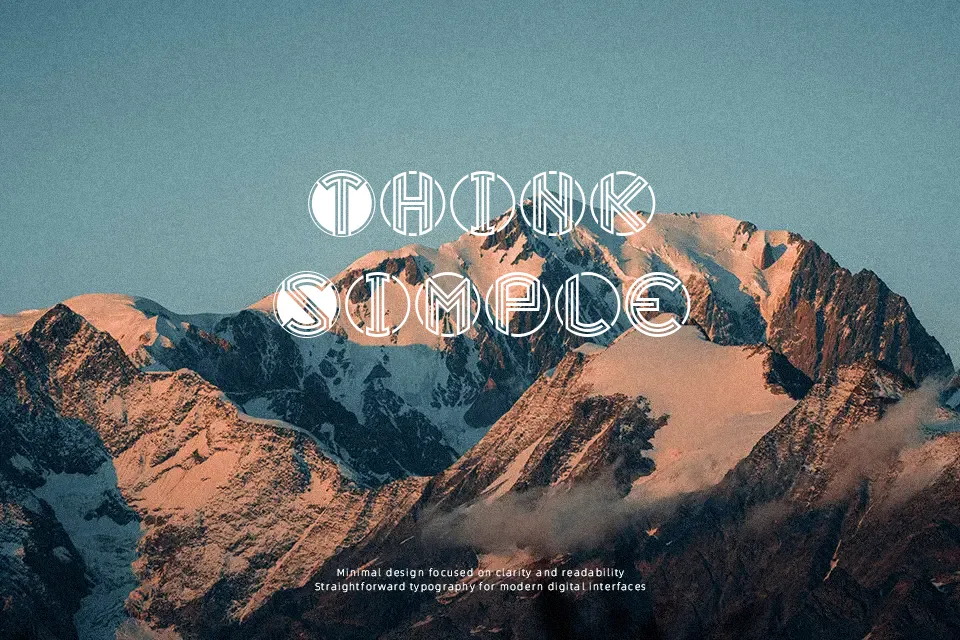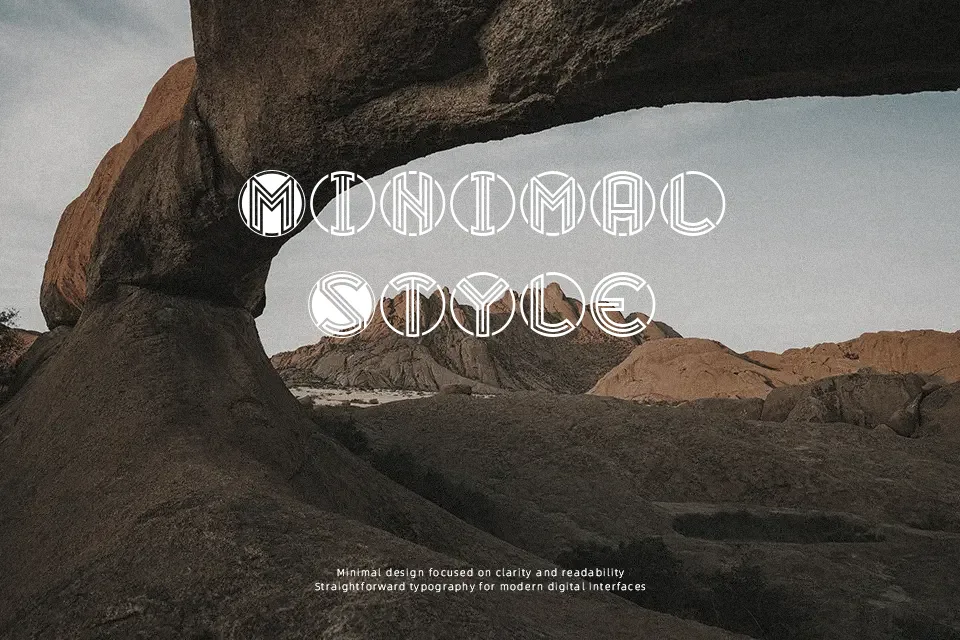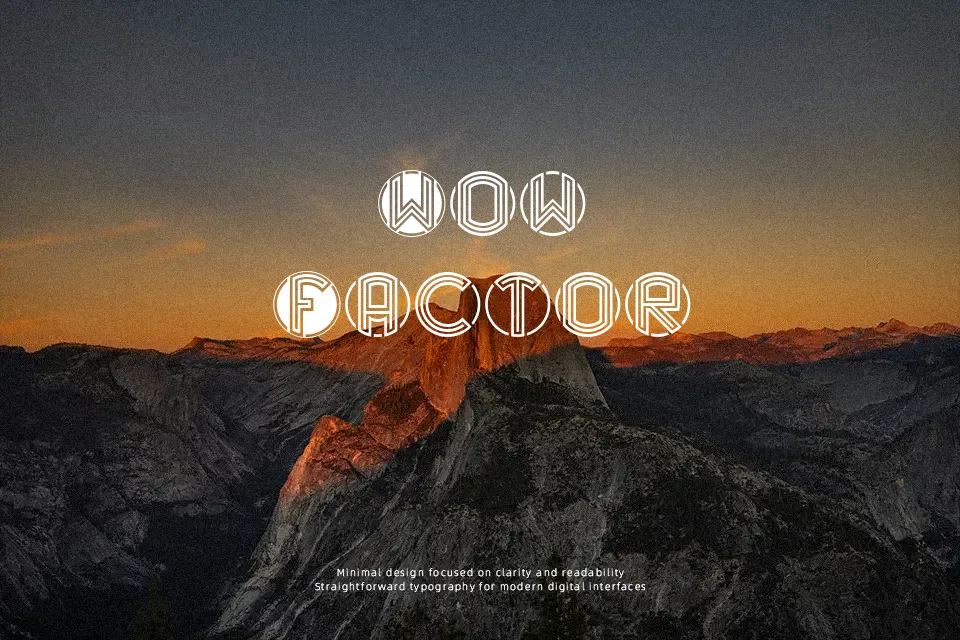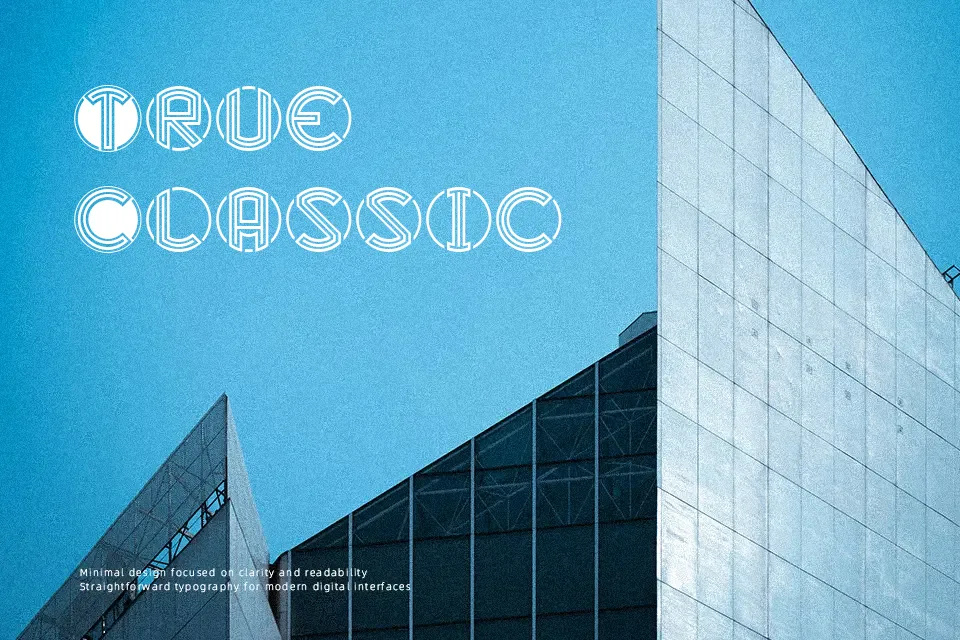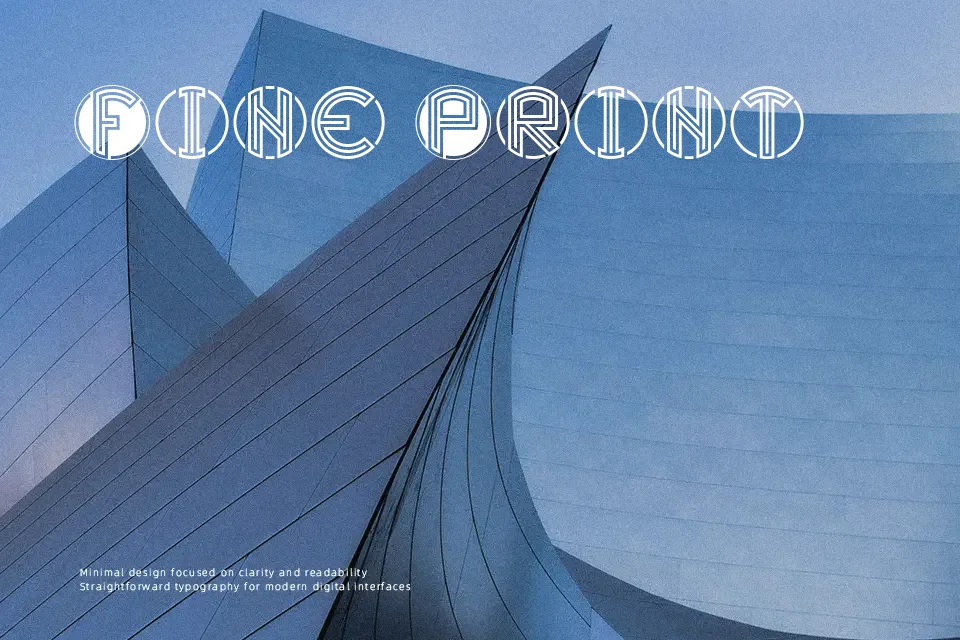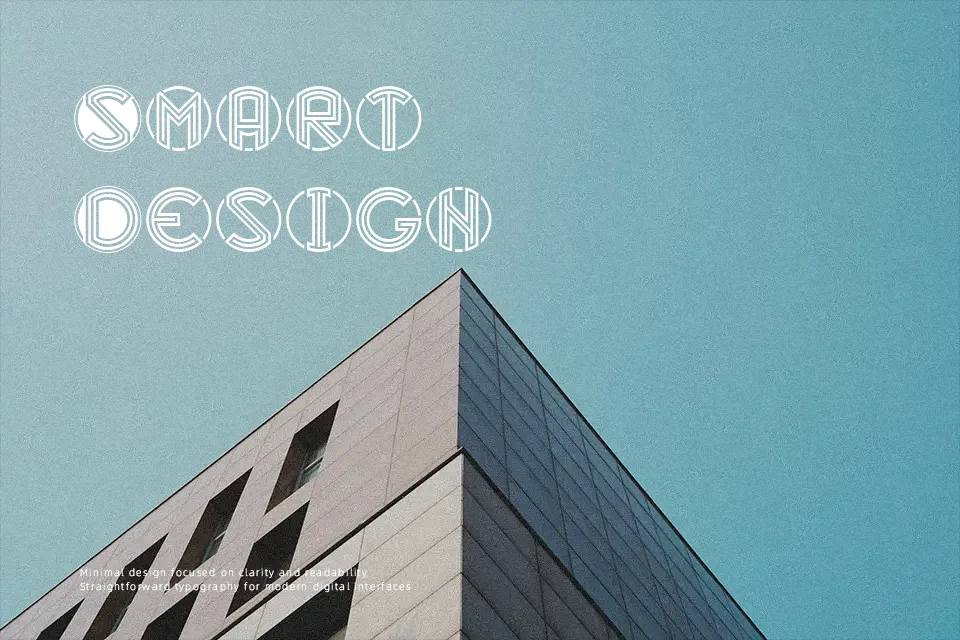
Chinese Circles Font
Chinese Circles Font introduces a distinct visual identity centered on circular contours, stylized internal geometries, and balanced line weight across its characters. The typeface maintains consistent circular proportions that give headlines an orderly yet highly decorative rhythm. Spacing between letterforms is calibrated to preserve individual character clarity, though the intricate circular enclosures demand generous layout breathing room. At large scale, the letterforms provide memorable visual interest for cultural event posters, specialized restaurant signage, and specialty retail packaging. However, the complex decorative geometry becomes difficult to parse at small sizes, making the font unsuitable for dense body copy. Displayed prominently, the design establishes an unmistakably unique thematic presence.
Cultural exhibition posters
Thematic restaurant menus
Specialty product packaging
Festival banner headlines
Continuous paragraph text
Mobile application interfaces
Small technical tables
Dense editorial copy
Perfect for branding, headline, and logo, with a ancient and decorative style.